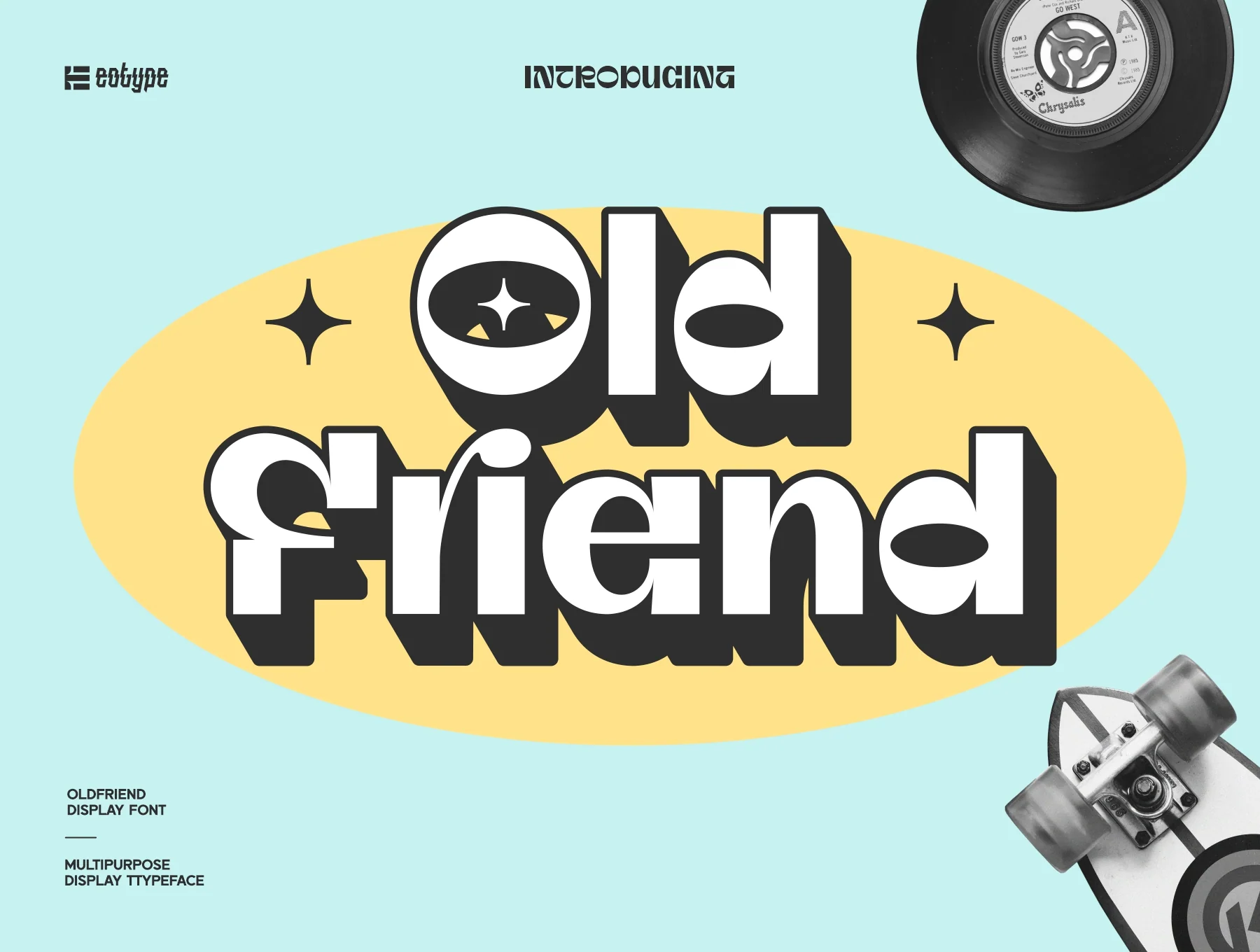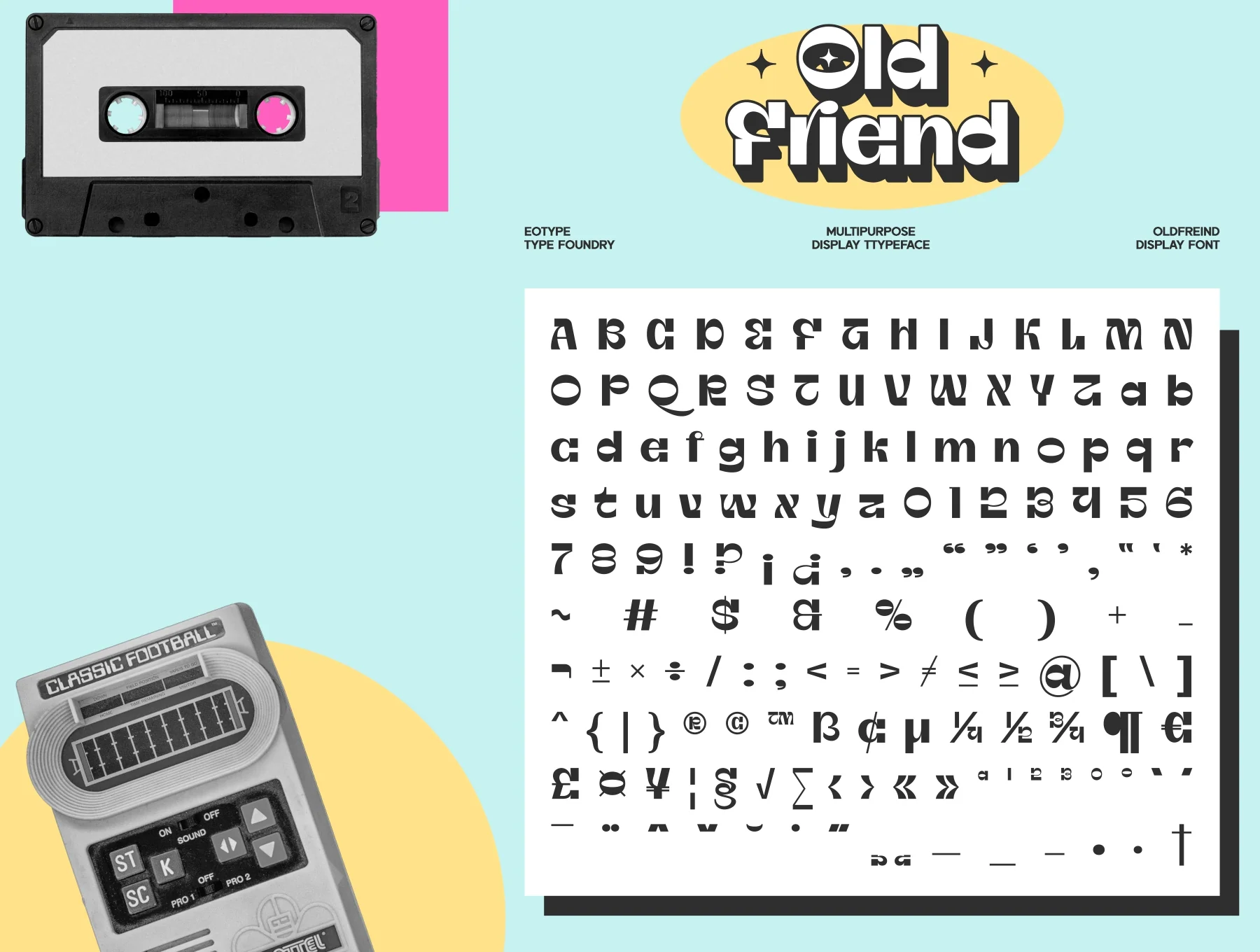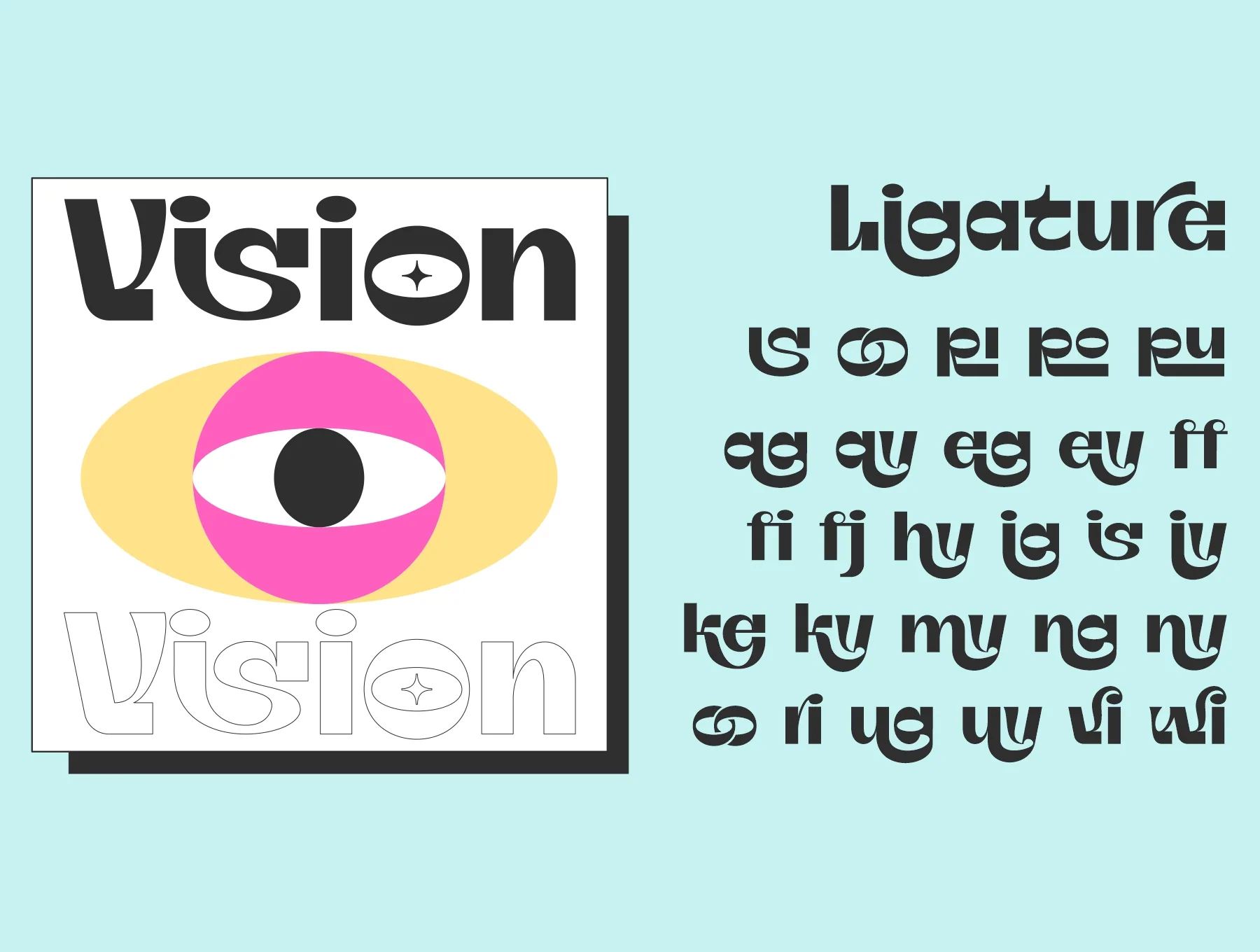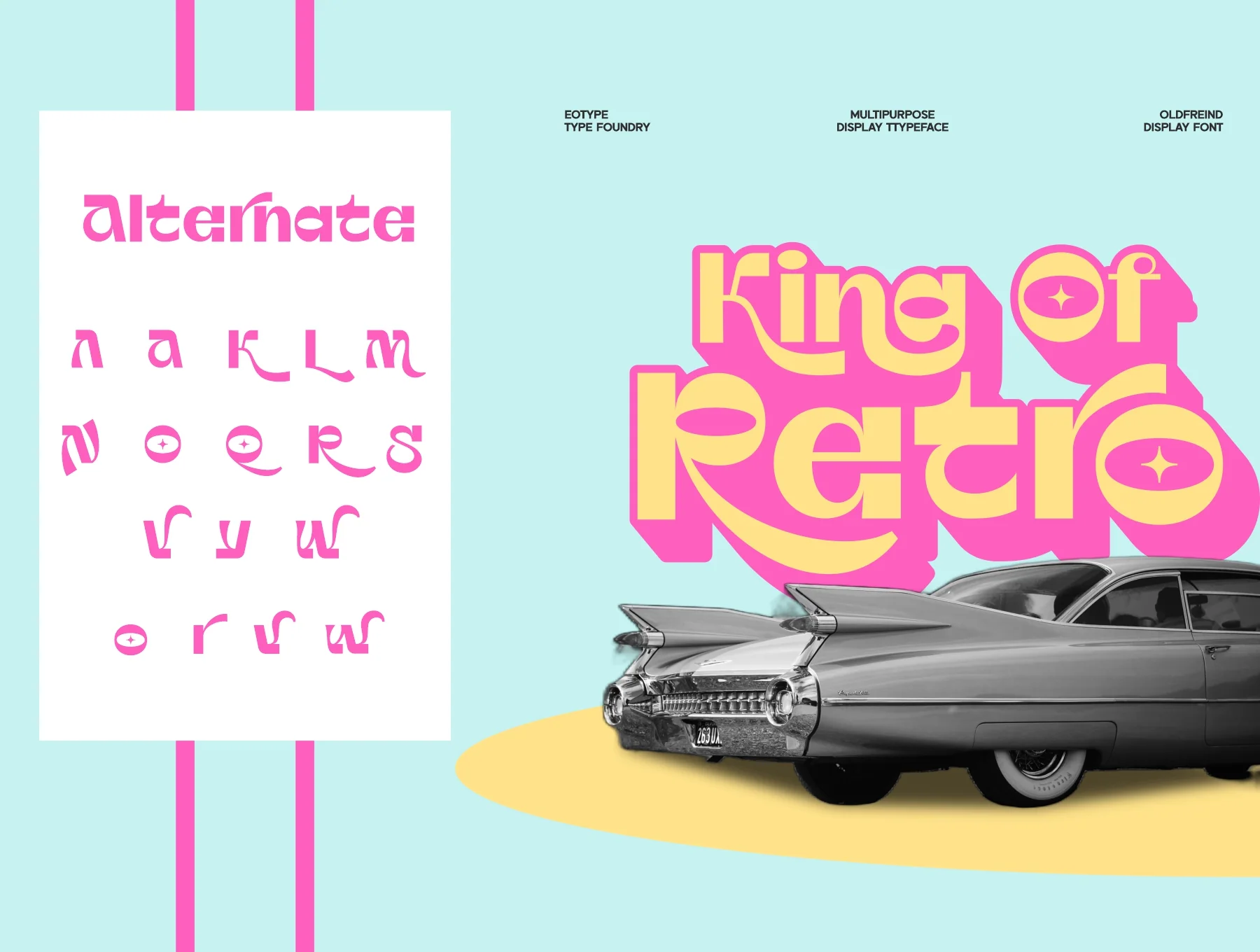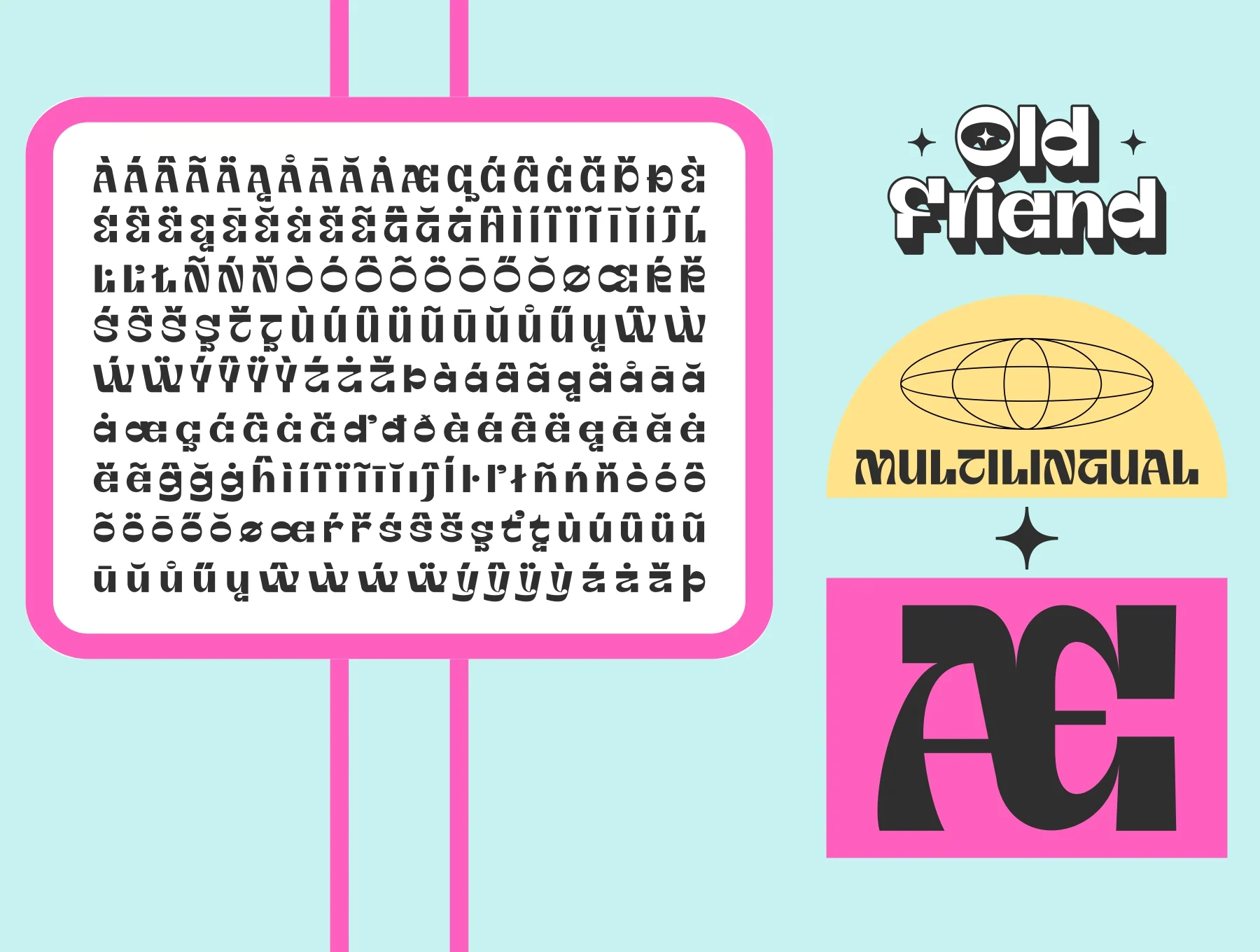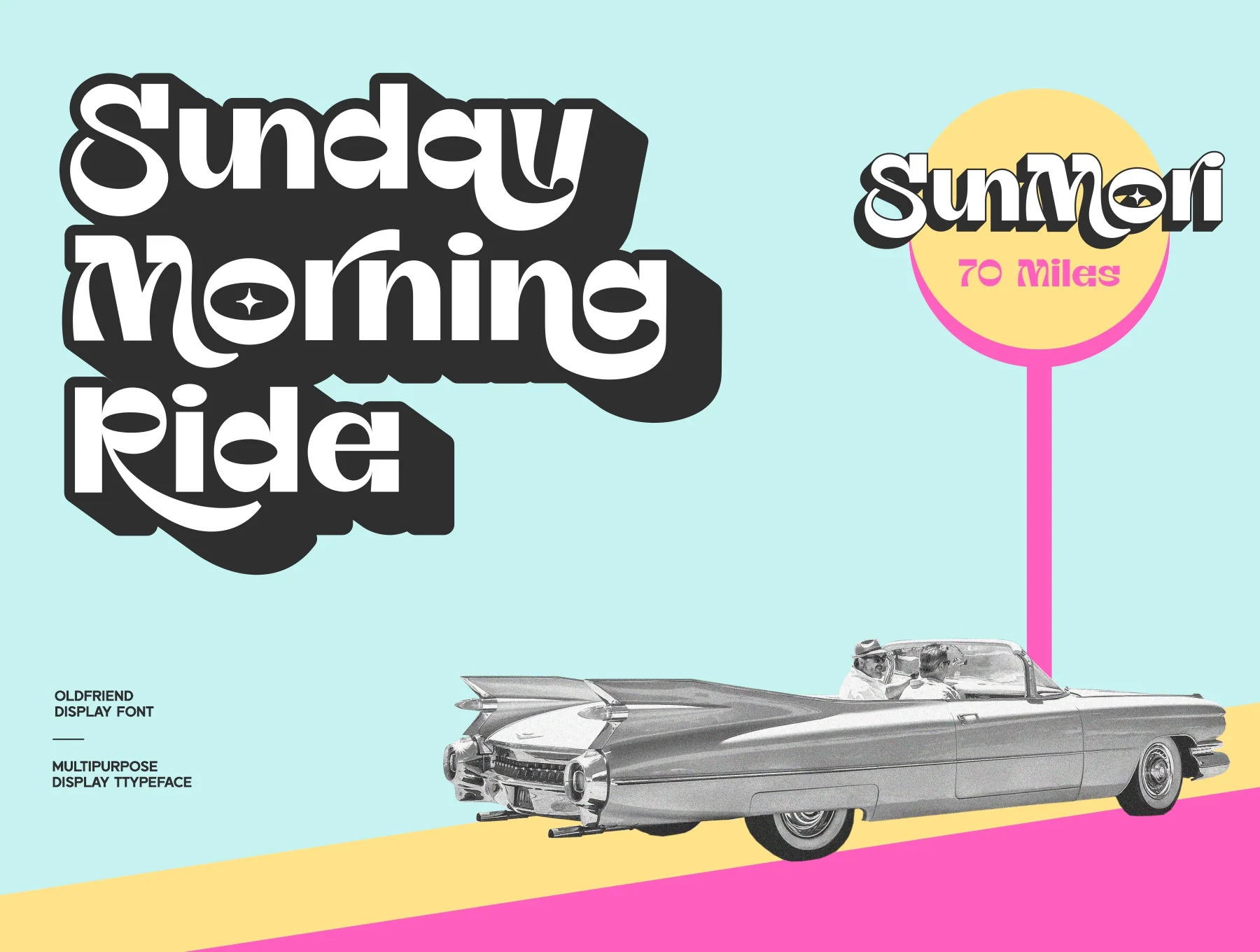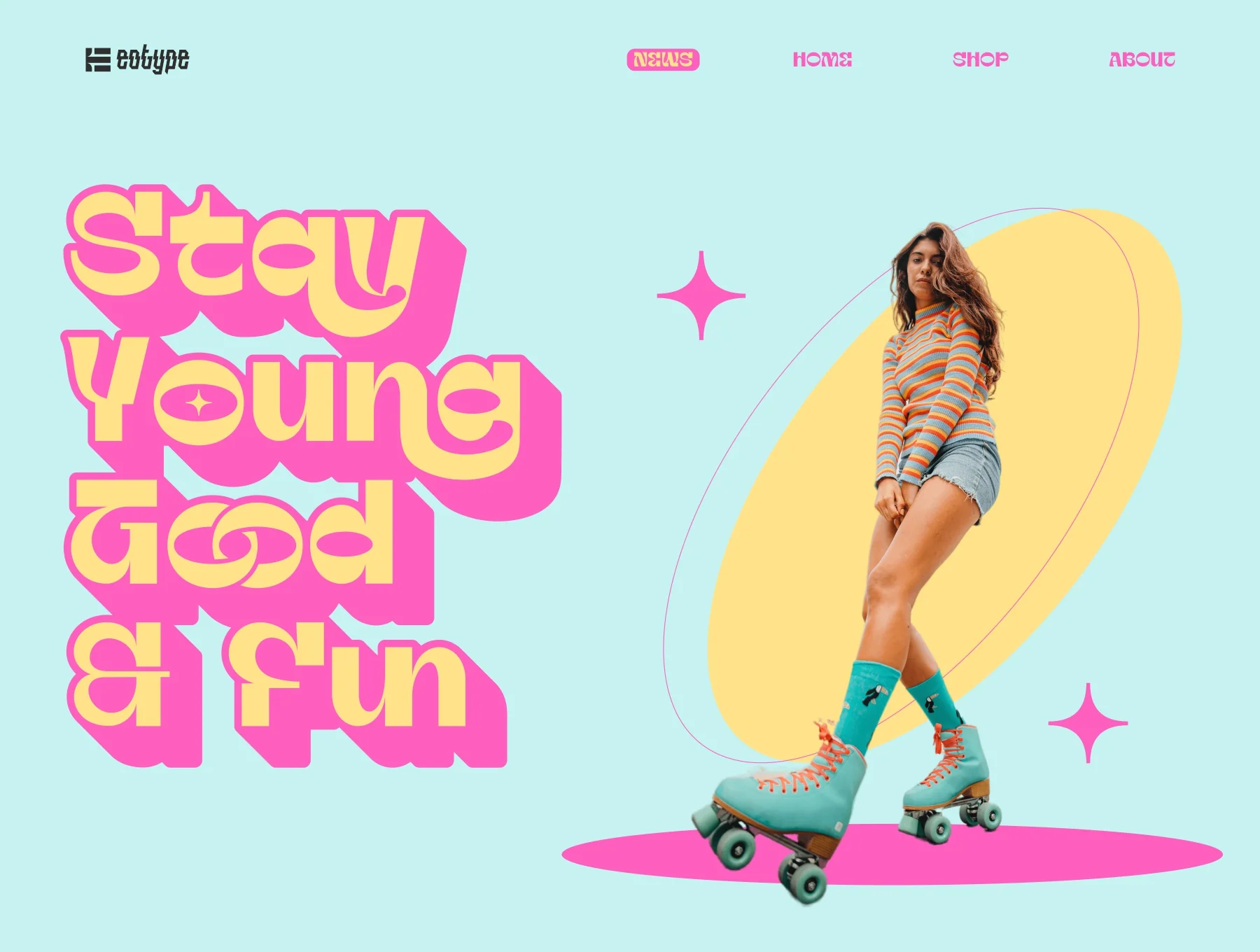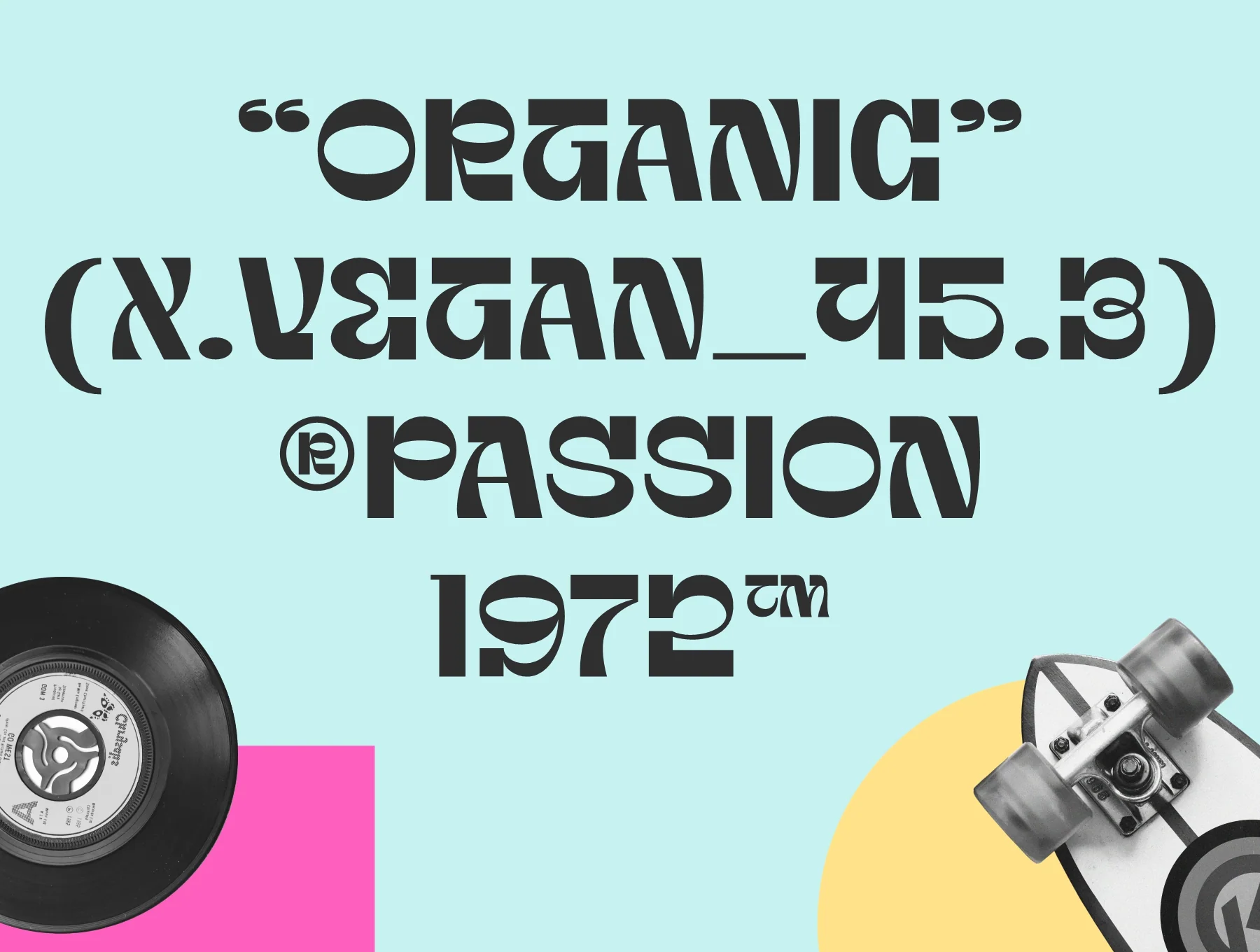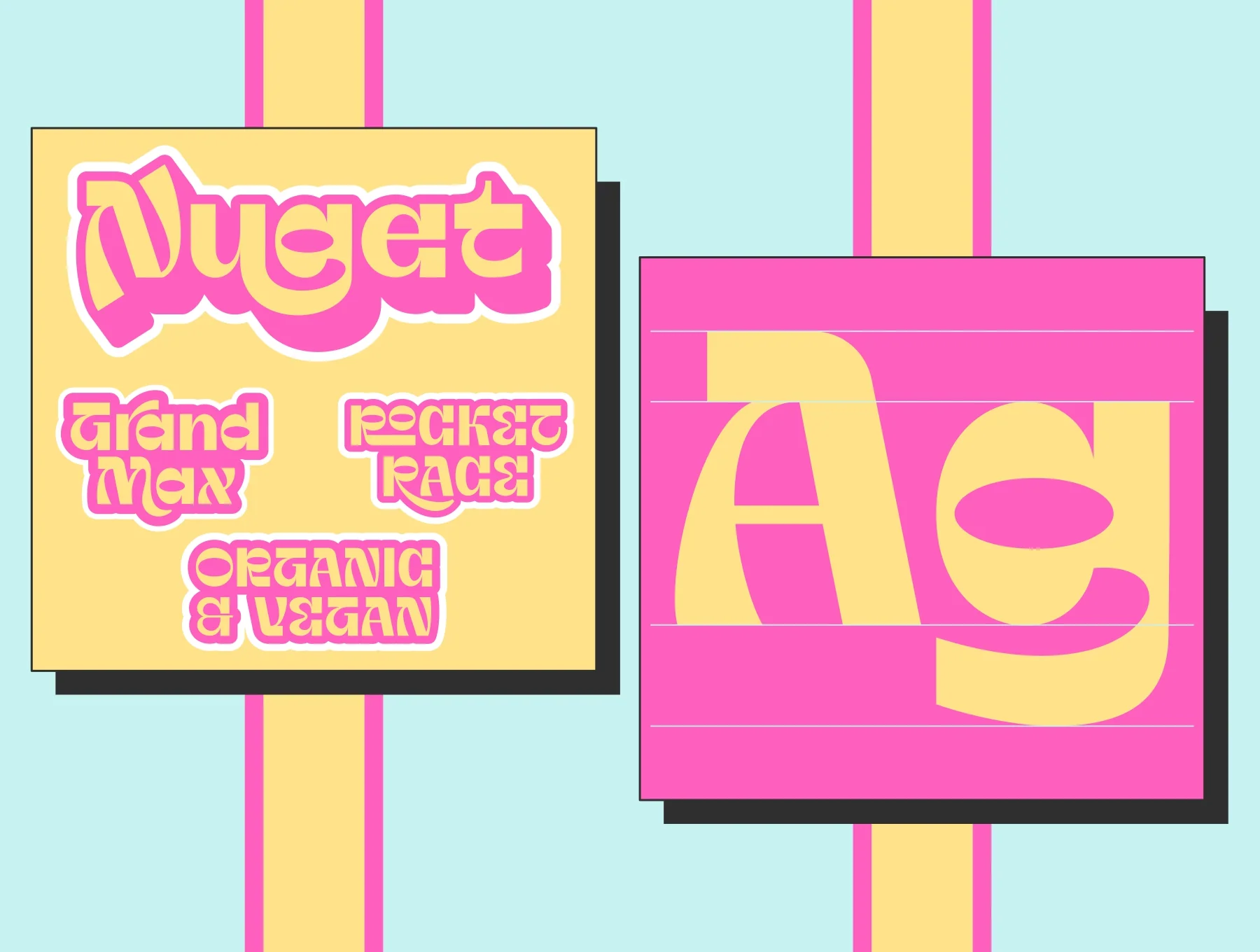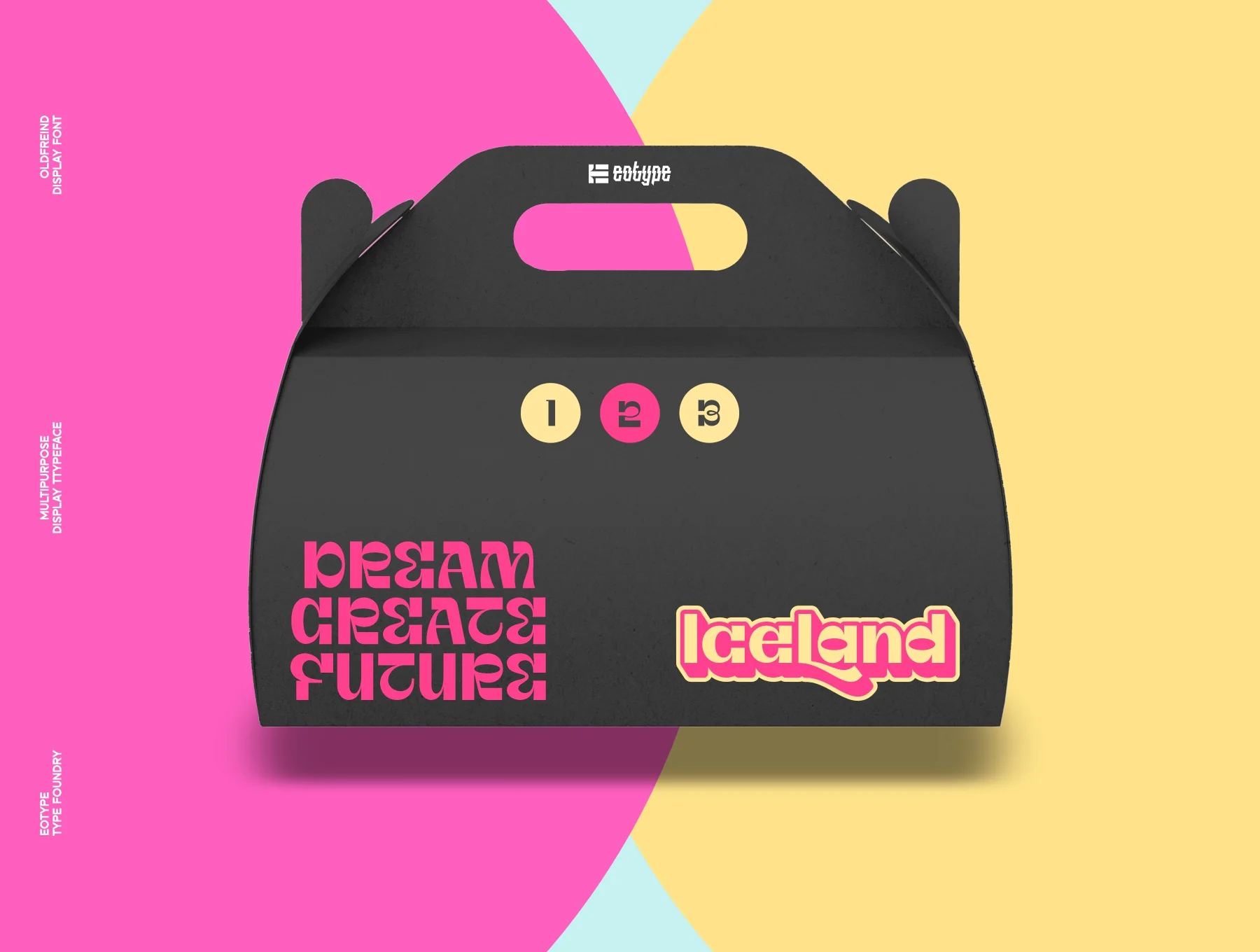
OldFriend - Display Font
OldFriend: Distinctive multipurpose display typeface
Basic glyph set
Normal style
Numbers and punctuation
OldFriend is a versatile, distinctive display font that brings a cheerful, approachable feel to your work. Perfect for retro, vintage, and urban themes, it includes alternate styles and ligatures, making it ideal for logos, product labels, posters, and many other creative projects.